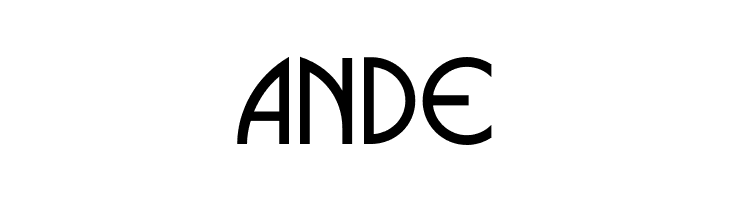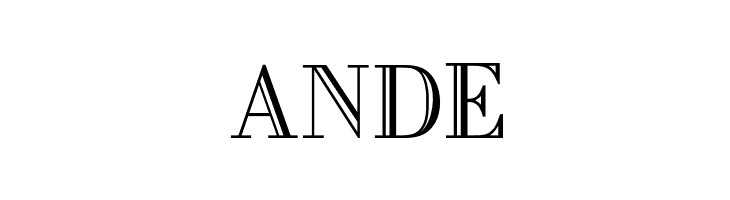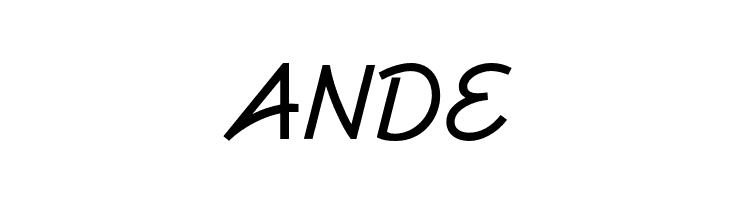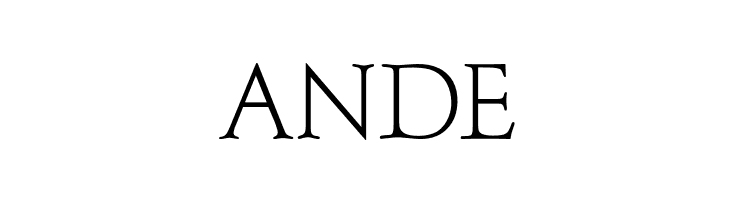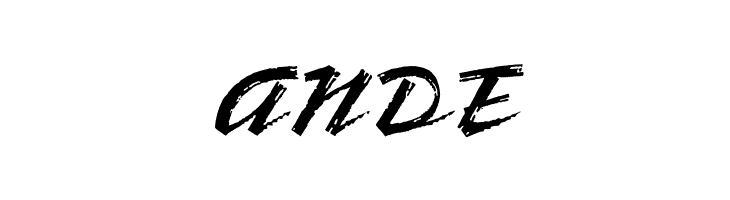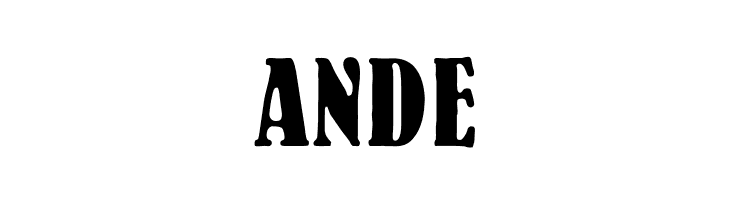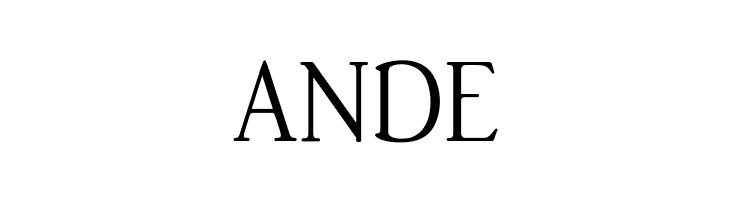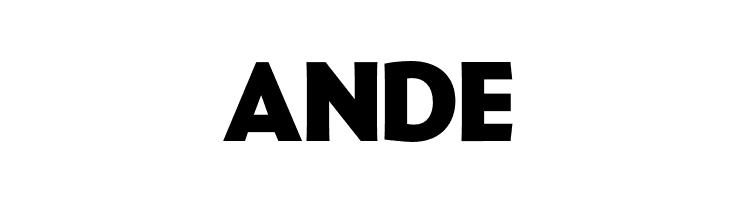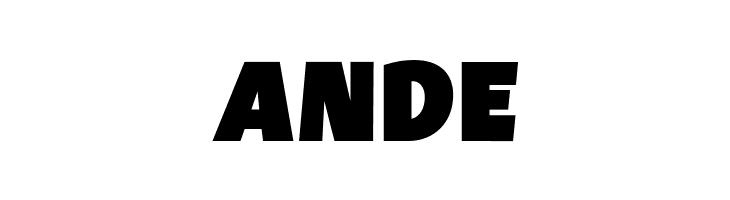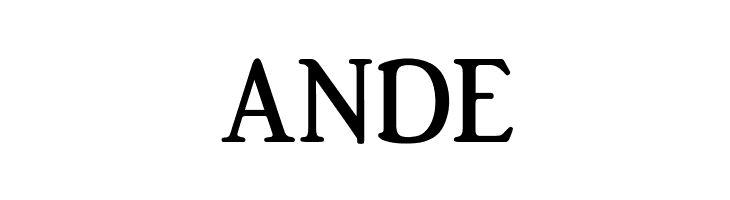
A classic serif font with semi-bold weight and elegant proportions.
A semi-bold italic serif font with a classic and elegant style.
A bold, condensed font with high contrast and decorative elements.
A bold, elegant cursive font with intricate loops and a classic charm.
A bold, geometric typeface with strong, uniform strokes and a modern aesthetic.
A classic serif font with elegant strokes and high contrast, ideal for refined designs.
A classic serif font with elegant strokes and balanced proportions.
A bold, impactful font with strong, thick strokes and a slight curvature for added softness.
A bold, impactful font with thick, uniform strokes and a strong visual presence.
A tall, narrow, and modern font with clean lines and a sleek appearance.
A tall, narrow, and modern font with a sleek, elongated design.
A bold, playful font with thick strokes and a modern, dynamic style.
A dynamic, casual font with a slight slant and smooth curves.
A classic serif font with high contrast and sharp serifs, exuding elegance and formality.
A refined serif typeface with high contrast and elegant serifs.
An elegant serif typeface with high contrast and an italic slant, perfect for refined designs.
A classic serif font with high contrast and elegant italics.
A classic serif font with high contrast and elegant strokes.
A classic serif typeface with high contrast and elegant, elongated forms.
A bold, classic serif font with strong, authoritative strokes.
A bold, italic swash font with classic elegance and decorative flair.
A decorative font with elegant swashes and a classic, sophisticated style.
An elegant and high-contrast italic font with narrow, elongated letterforms.
A tall, elegant font with high contrast and elongated uppercase letters.
An elegant script font with flowing, ornate cursive letters and high contrast strokes.
A bold, italic font with high contrast and dynamic slant, perfect for impactful designs.
A bold, high-contrast serif font with a classic and authoritative style.
A bold, brush-style script font with dynamic and expressive strokes.
A bold and robust font with strong, thick strokes and a touch of elegance.
A refined serif font with high contrast and elegant, thin strokes.
A classic serif typeface with elegant strokes and medium weight.
A classic serif font with elegant, pointed serifs and balanced stroke contrast.
A bold, rounded font with a playful and cohesive design.
A bold, block-like font with thick, uniform characters for impactful design.
A bold, geometric font with clean lines and modern style.